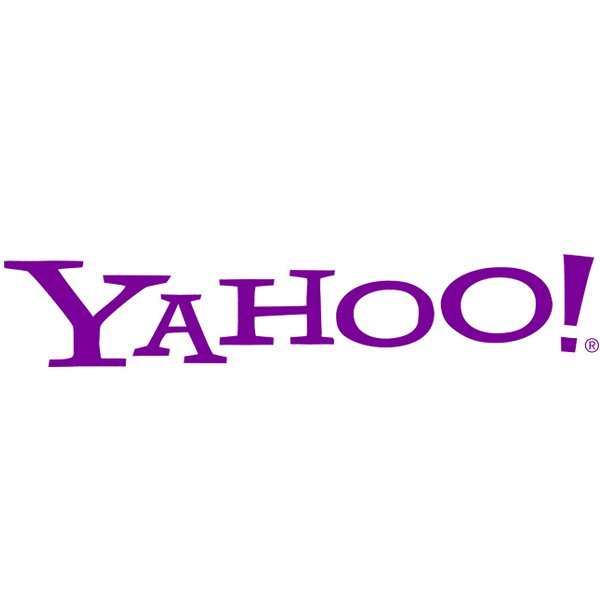
In The Yahoo logo, customized font style has been used. A similar font called Yahoo was created by GautFonts to imitate the actual logo lettering. The Yahoo font is available in uppercase letters, numbers along with most punctuation marks and accented letters. You can download the Yahoo font for free here.